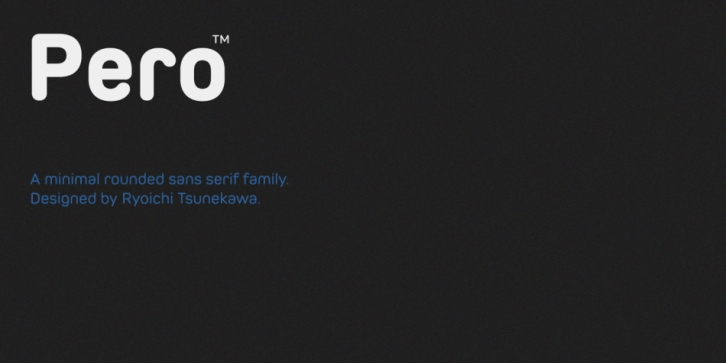
Pero is a sans serif font family. This typeface has seven styles and was published by Dharma Type.
Pero is a condensed rounded sans-serif family designed by Ryoichi Tsunekawa and the whole family consists of 7 weights from ExtraLight to ExtraBold.The range of styles provides flexibility for title, headline and body text. And the large x-heights gives them legibility and readability.
The basic skeleton of their letterform was designed modularly and minimalized by removing their unnecessary stems and their ends was rounded out.
The minimalized modular design gives this family contemporary urbane taste and rounded corners make this family warm and friendly. This rounded feature will also accentuate your design work moderately.
Pero supports almost all European languages: Western, Central, South Eastern Europeans and afrikaans. And superior figures, inferior figures, denominators, numerators and fraction can be accessed by using OpenType features.